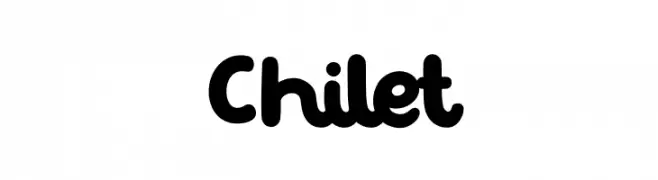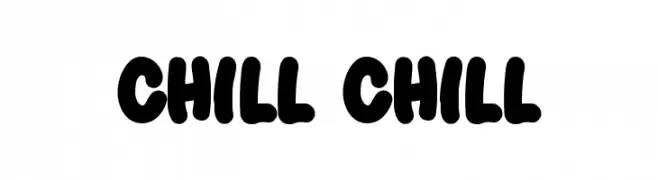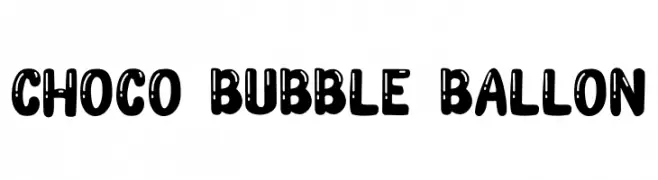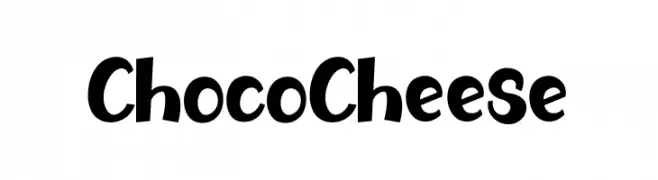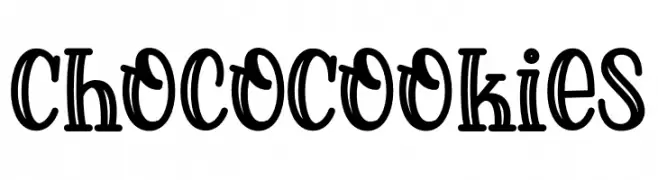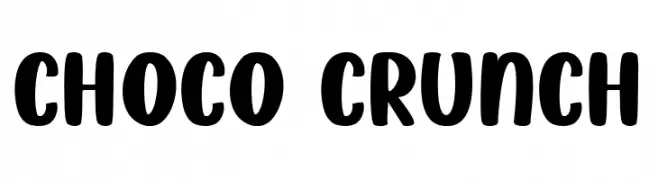
A playful, bold font with rounded, bubbly characters.
( Fonts by Tigadestd )
A bold, rounded, and playful font with a bubble-like appearance.
( Fonts by ffontspedia )
A playful, bold font with rounded, chunky letters and a whimsical style.
( Fonts by Ridwan Saputra )
A playful, rounded font with bold, smooth curves and a friendly style.
( Fonts by Savana Price )
A playful, hand-drawn font with bold, irregular shapes and a friendly vibe.
( Fonts by Rissyletter Studio )
A playful, balloon-like font with bold, rounded characters.
( Fonts by The Typerex )
A playful, bold font with chunky, rounded characters and a whimsical style.
( Fonts by Rochart Studio )
A playful, bold font with rounded, whimsical letterforms.
( Fonts by Fikryal studio )
A bold, playful font with rounded, low-contrast characters.